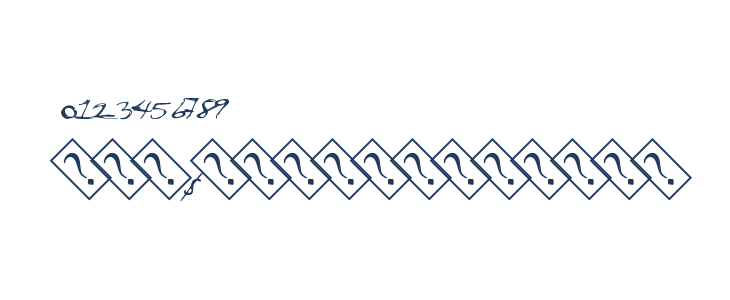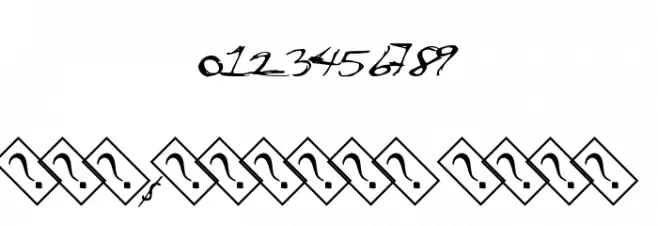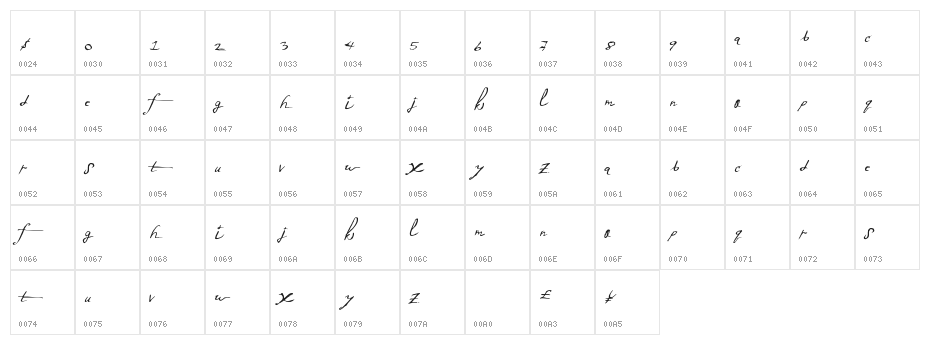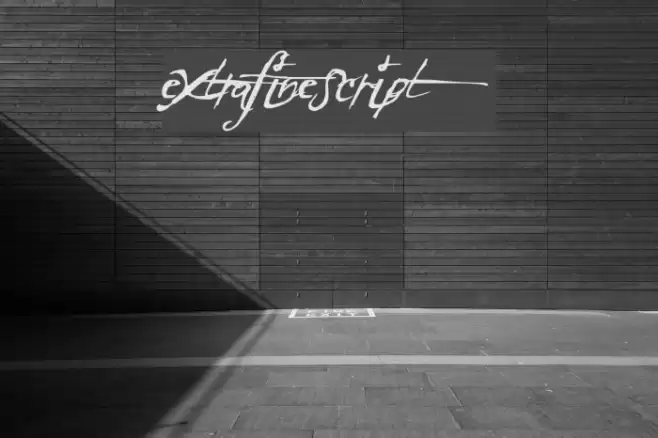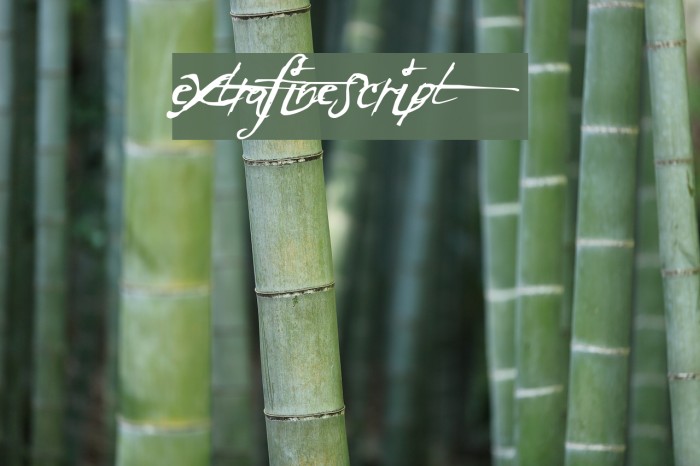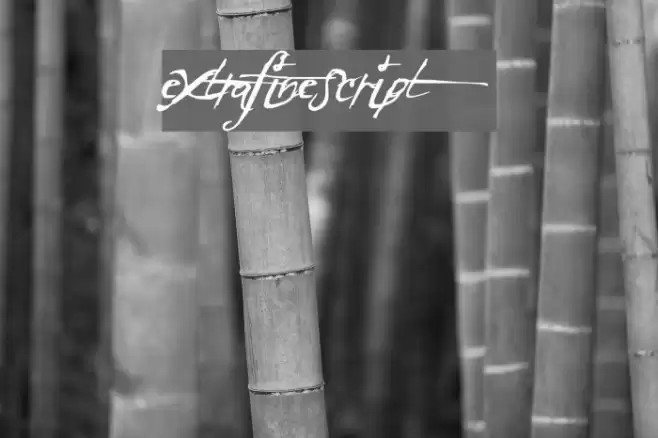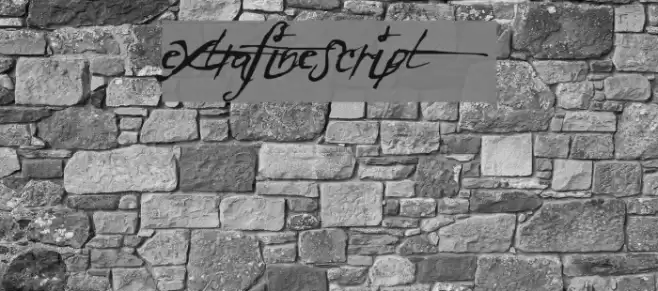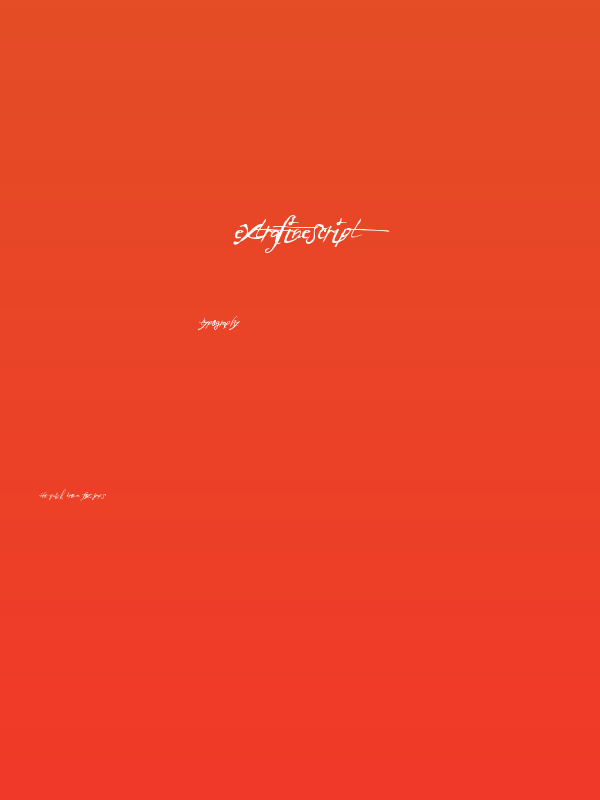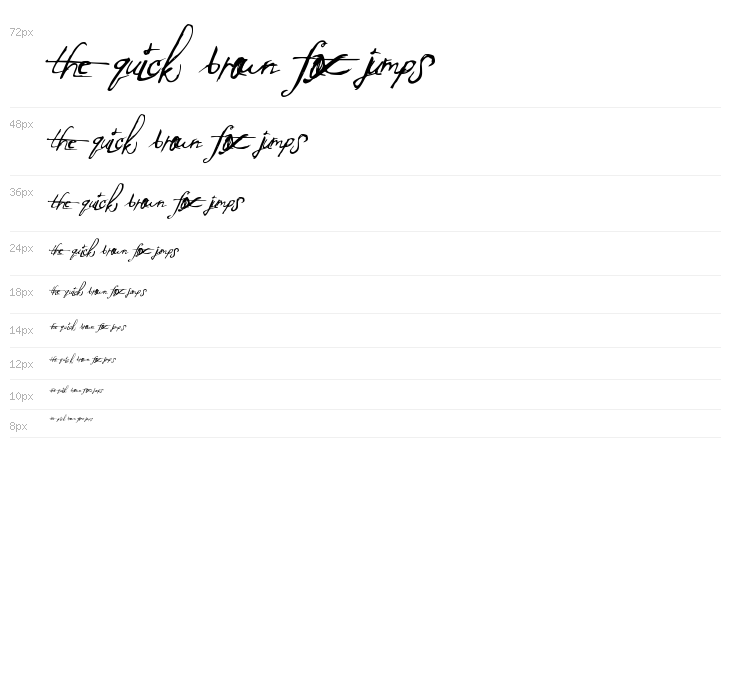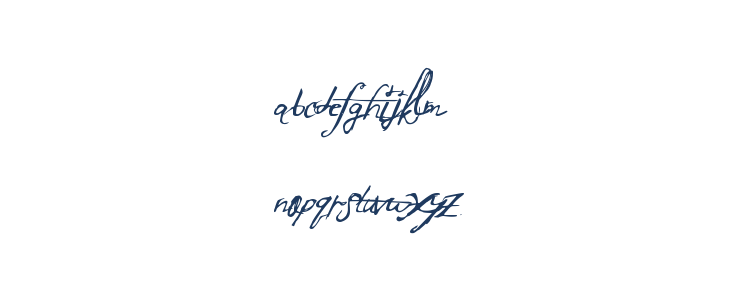
ExtraFineScript Font
ExtraFineScript Description
This font exudes elegance and sophistication with its intricate, flowing script style. The characters are crafted with a high degree of detail, featuring delicate curves and flourishes that give it a refined, artistic appearance. The uppercase letters are bold and prominent, while the lowercase letters maintain a graceful continuity, making it ideal for creating a sense of movement and fluidity. The numbers are equally stylized, maintaining the overall aesthetic of the font. The special characters are uniquely designed, adding a touch of creativity and flair. This font is perfect for projects that require a touch of elegance and artistic expression.